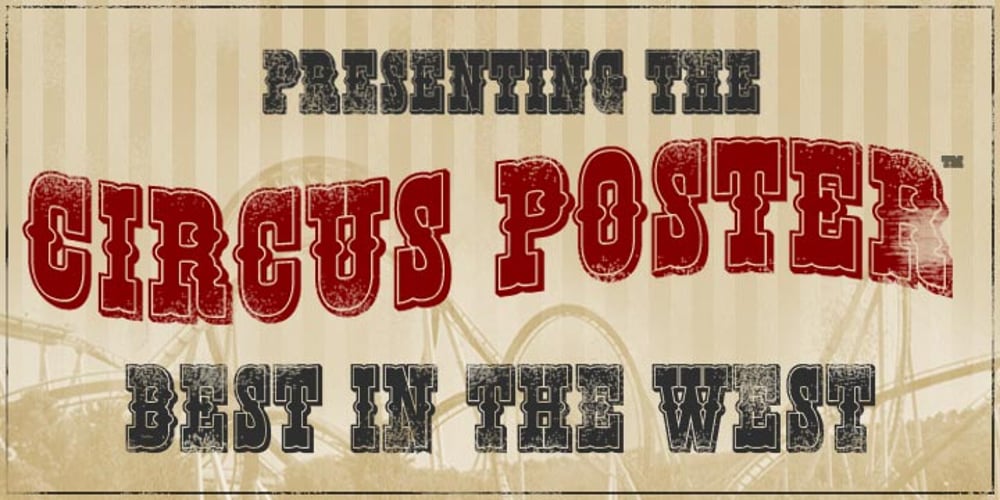
Circus Poster
Circus Poster font
Circus Poster Font Family was designed by Tom Rickner and published by Ascender. Circus Poster contains 1 styles and family package options. Circus Poster Shadow was created by Tom Rickner as a tribute to the classic Tuscan Egyptian forms used in many wood types of the 1890s. It captures the spirit of the wild west, amusement parks and ciruses. The details of Circus Poster Shadow are best reproduced at larger, display sizes.